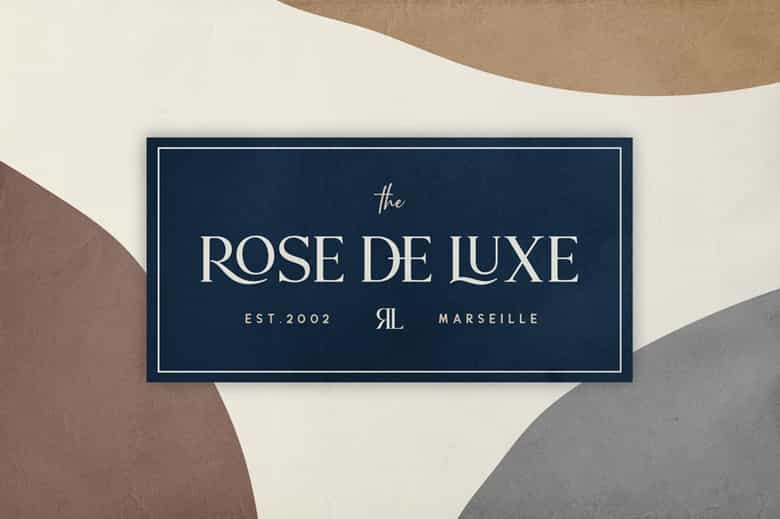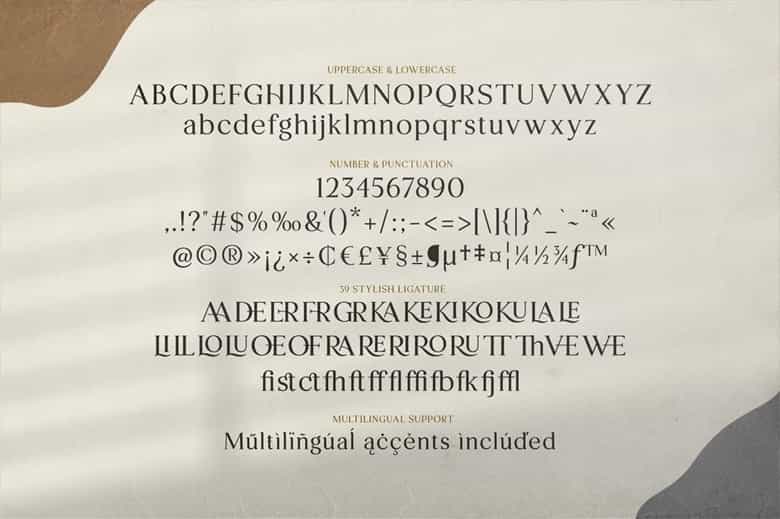
DeRose is a beautiful serif typeface. This type is very contemporary with smooth and smooth edged design that gives a touch of affluence. Make your design to look distinct and artistic. Suits for logos, quotes, product branding, header, posters, t-shirts, social media and greeting cards.